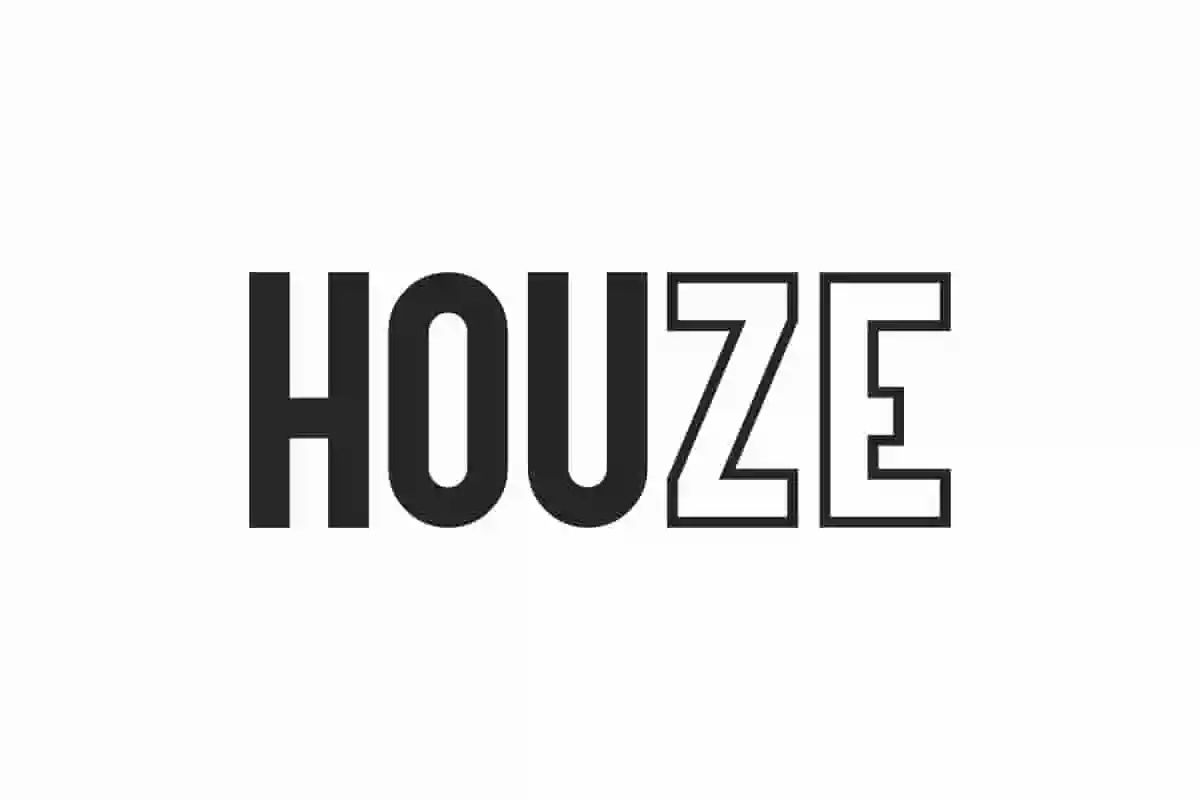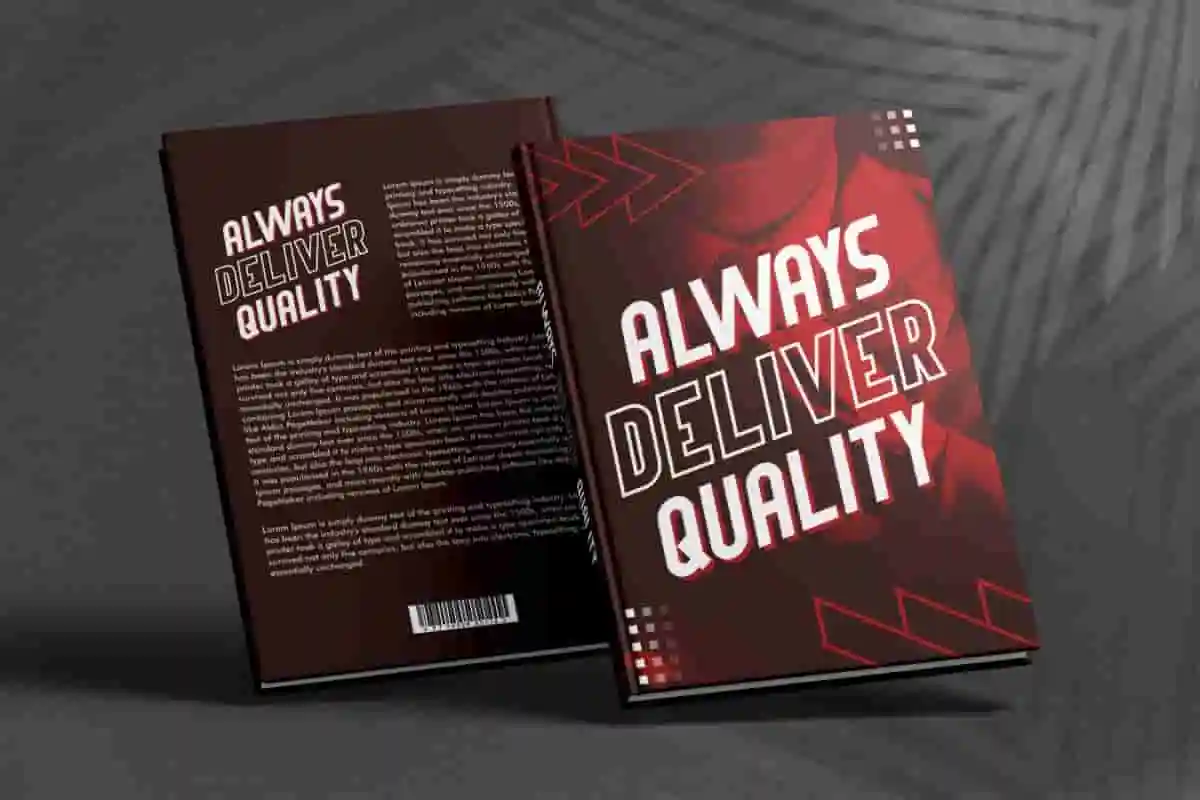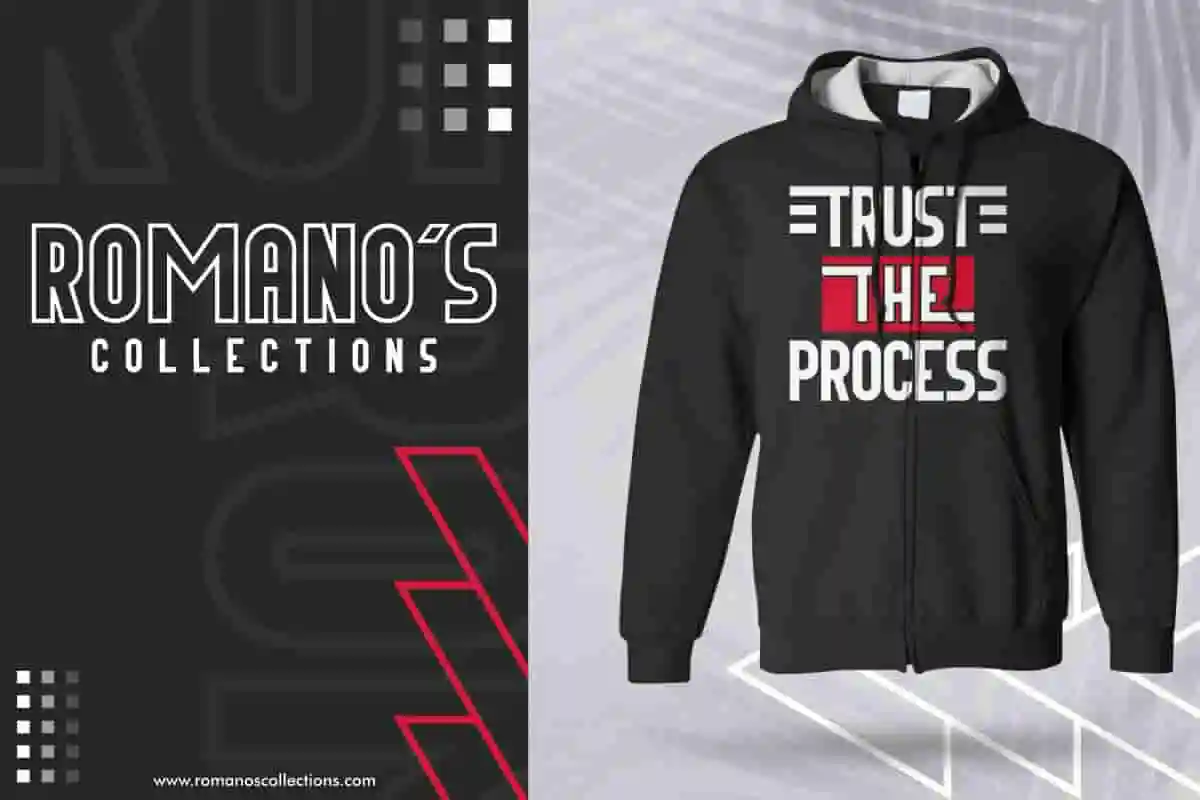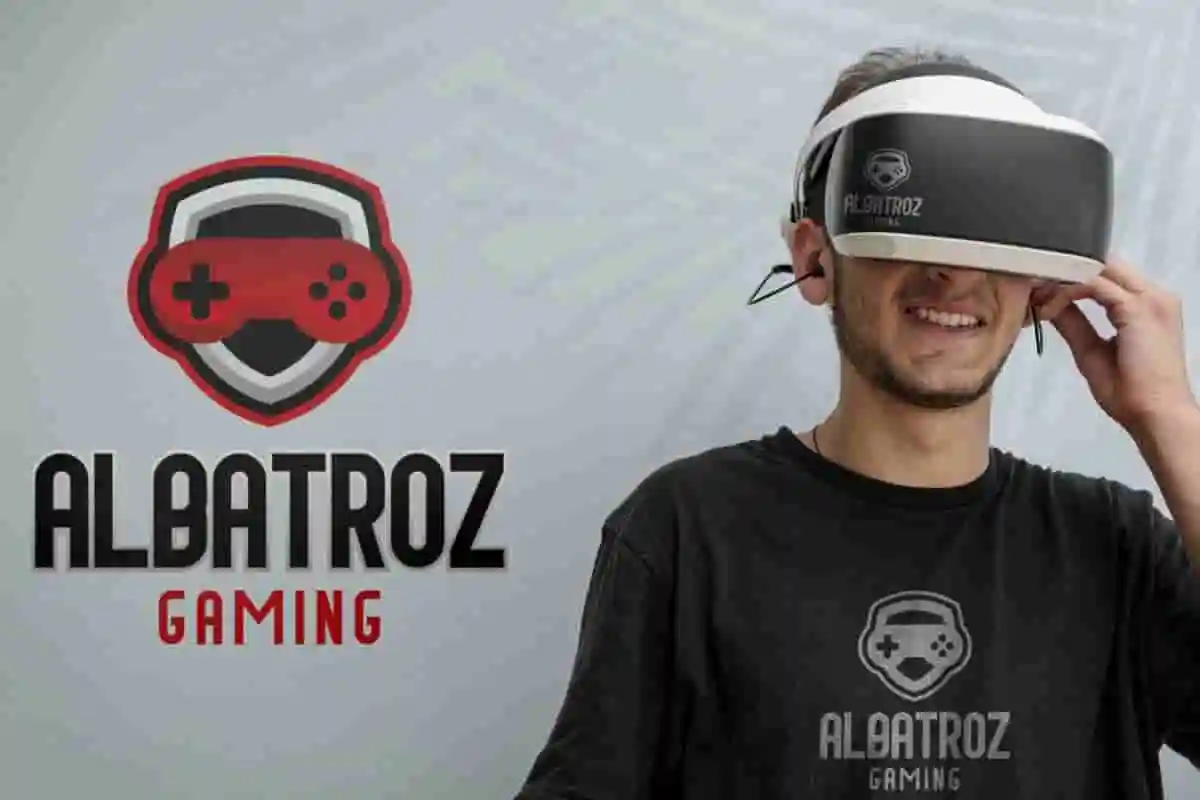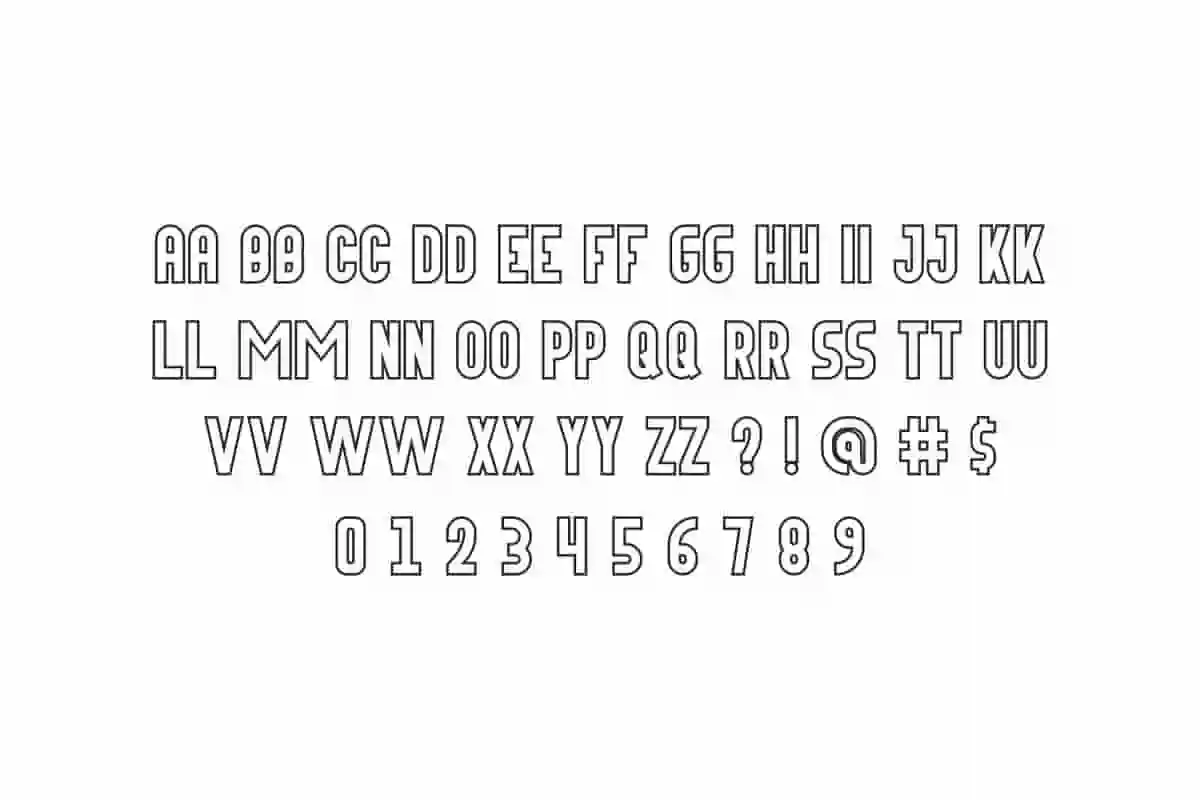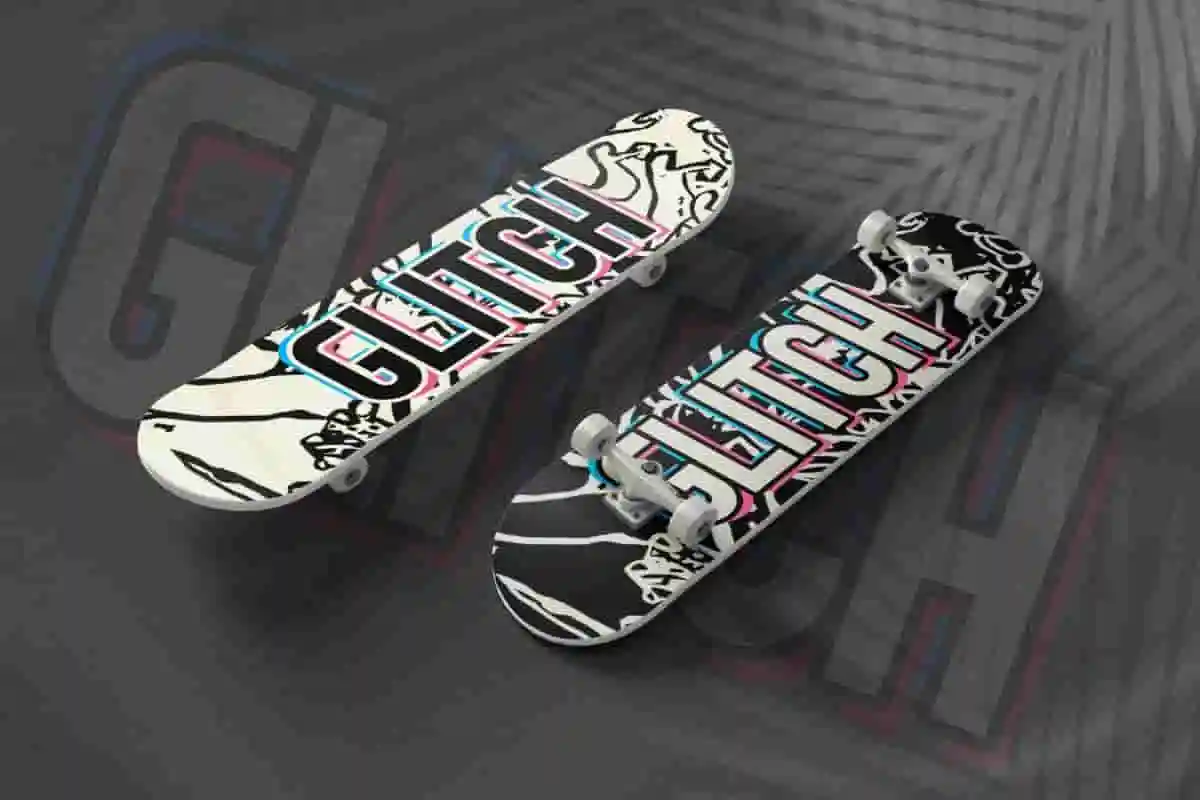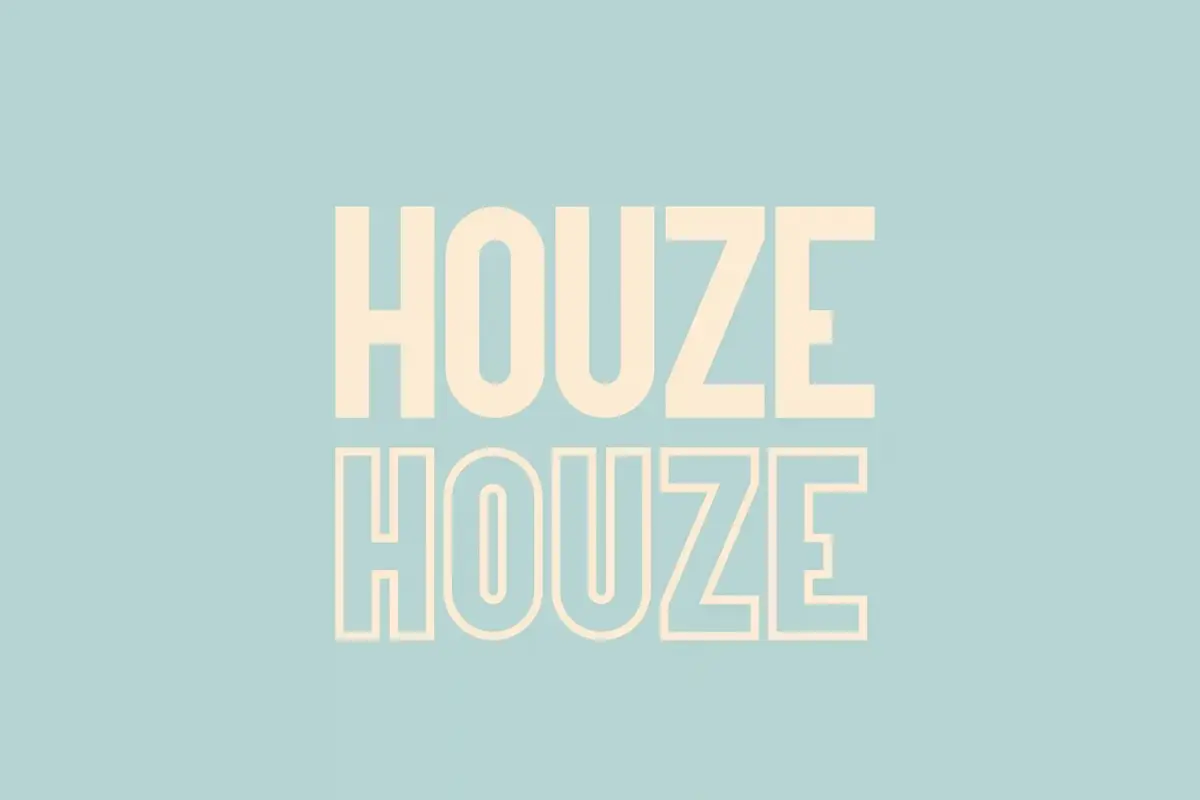
Houze Font is a modern futuristic sans serif display font by NihStudio, made in 2021. Houze Font will great for technology industries, magazine, futuristic or modern projects.
Houze Font – Modern Minimal Sans Serif Display Font
Houze Font is a sleek and stylish modern sans serif display font, designed and handcrafted by NihStudio in Indonesia. Built with a clean, minimal aesthetic, Houze Font offers high legibility and a timeless look—making it perfect for a wide variety of creative and professional design projects.
Whether you’re working on branding, logos, business cards, flyers, brochures, posters, signage, or packaging, Houze Font will give your designs a bold and modern edge. This font family includes two elegant styles: Regular and Outline, which offer versatility and flexibility for both print and digital media.